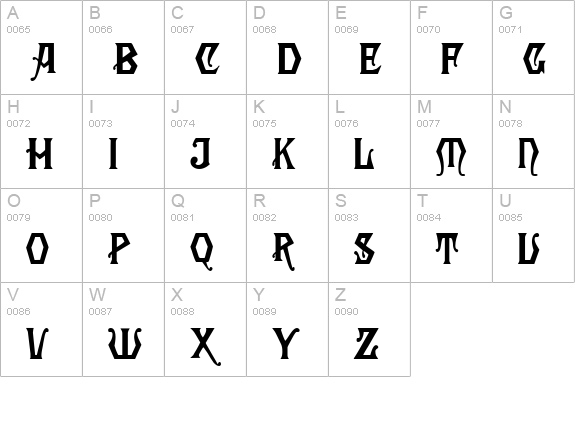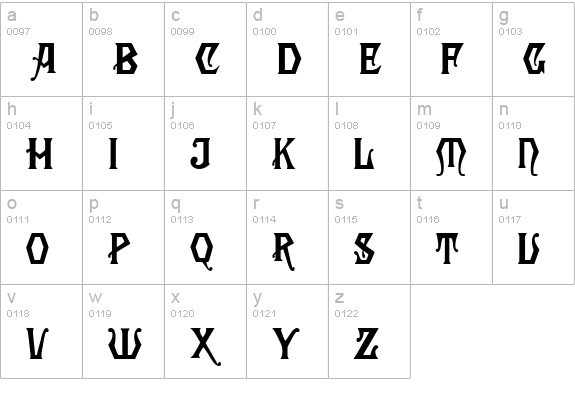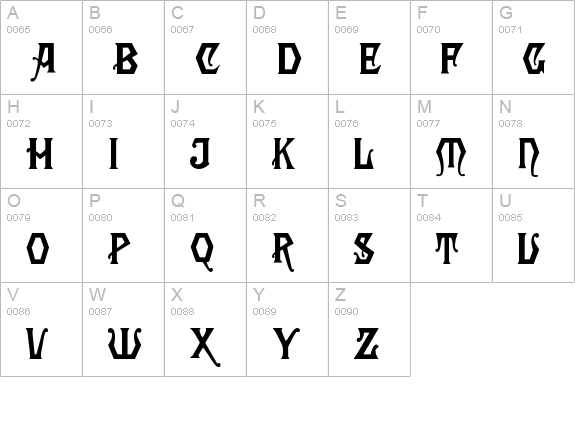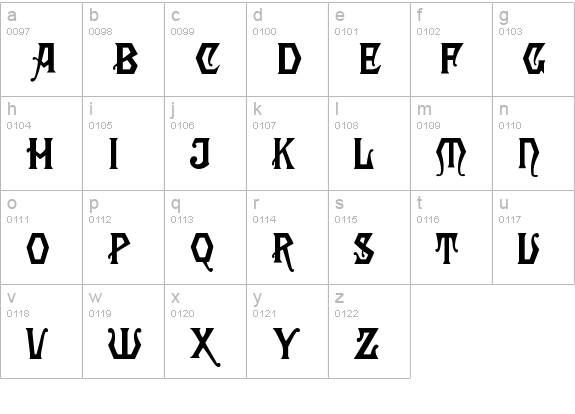
Angular Font Details
Angular font is a modern and sleek typeface that is ideal for design projects requiring a clean and sophisticated look. Its sharp angles and geometric shapes give it a distinctive appearance that sets it apart from other fonts. The angular design of this font adds a dynamic and energetic feel to any text it is applied to. Best of all, Angular font is completely free to download at FontsMarket.com. This means that you can easily access and use this stylish font in your projects without any cost. Whether you are working on a website design, branding materials, or any other creative project, Angular font is a versatile choice that will help you achieve a polished and professional look. Download Angular font today and elevate your designs with its unique style and aesthetic appeal.